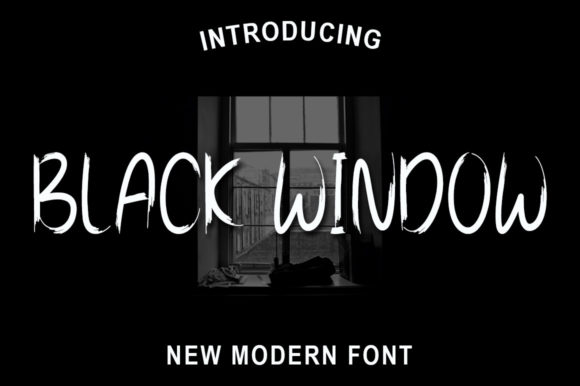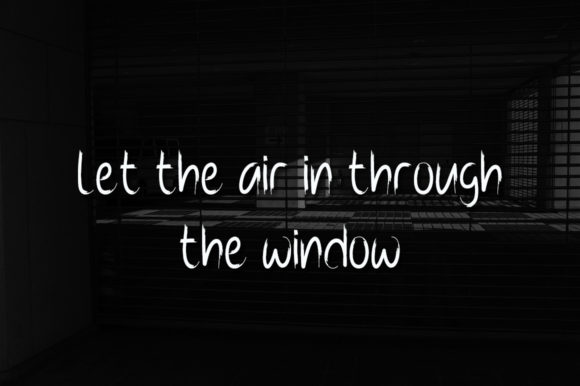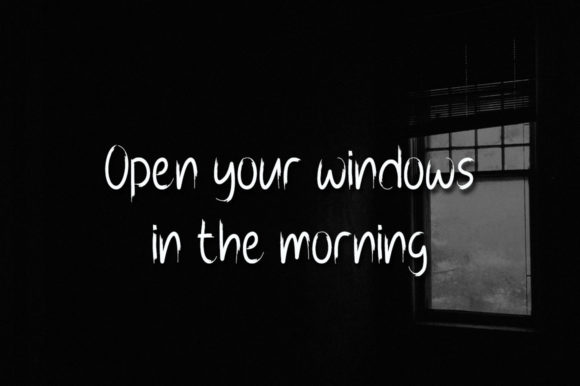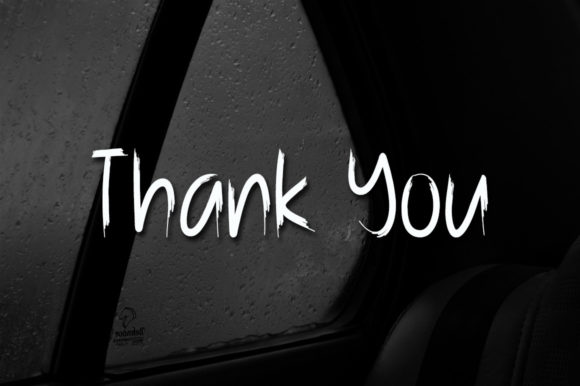
Black Window Font
About Black Window Font
Black window is a slim and sleek handwritten font, featuring an authentic style resembling thing brush strokes. Incredibly cool and original, this awesome typeface will elevate the look of any crafty idea!